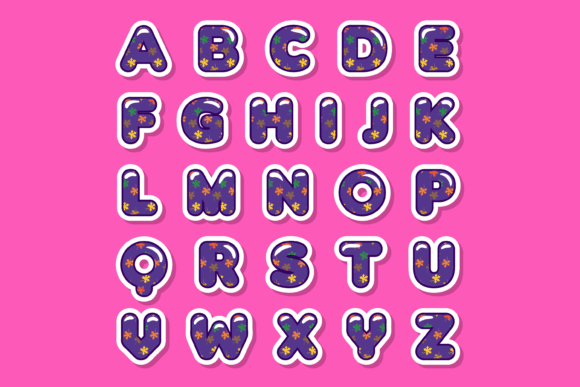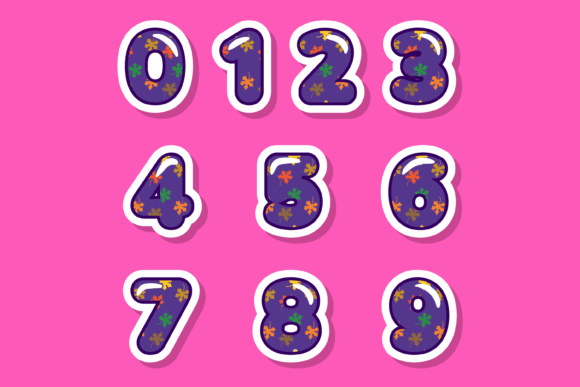
Fall Leaves Font: Add a Touch of Autumn Charm to Your Designs
As the seasons change and autumn arrives, designers and crafters are on the lookout for inspiration to add a touch of warmth and coziness to their projects. If you’re looking for a font that captures the essence of fall, look no further than the Fall Leaves Font. This lovely color font is perfect for a wide range of autumn-related designs, from wedding invitations to back-to-school projects, party decorations, posters, blogs, clothing, greeting cards, social media posts, and more.
What Makes Fall Leaves Font So Special?
Fall Leaves Font is a unique and charming color font that features beautiful, intricate designs that evoke the feeling of fall. The font is carefully crafted to bring a friendly and approachable touch to your designs, making it perfect for projects that require a personal and autumnal feel. With its stunning color and elegant design, Fall Leaves Font is sure to bring any DIY project to life.
Uses for Fall Leaves Font
The versatility of Fall Leaves Font is one of its best features. Here are just a few ideas for how you can use this amazing font in your designs:
- Autumn-related designs: From harvest-themed posters to cozy fall party decorations, Fall Leaves Font is the perfect choice for any autumn-inspired project.
- Wedding invitations: Add a touch of romance and whimsy to your wedding invitations with Fall Leaves Font. Its elegant design and beautiful colors make it perfect for fall weddings.
- Back-to-school projects: Create eye-catching posters, flyers, and other back-to-school materials with Fall Leaves Font. Its friendly and approachable design is sure to delight students and teachers alike.
- Party decorations: From fall birthday parties to harvest-themed gatherings, Fall Leaves Font is the perfect choice for creating festive and fun party decorations.
- Posters and blogs: Add a touch of autumn charm to your posters and blogs with Fall Leaves Font. Its elegant design and beautiful colors make it perfect for a wide range of topics and themes.
- Clothing and accessories: Use Fall Leaves Font to create eye-catching designs for clothing, hats, scarves, and other accessories. Its unique and charming design is sure to stand out.
- Greeting cards and social media posts: Add a personal touch to your greeting cards and social media posts with Fall Leaves Font. Its friendly and approachable design is perfect for sharing with friends and family.
Why Choose Fall Leaves Font?
With so many fonts to choose from, why should you choose Fall Leaves Font? Here are just a few reasons why this amazing font stands out:
- Unique and charming design: Fall Leaves Font features a beautiful and intricate design that is sure to capture the essence of fall.
- Versatile: From autumn-related designs to wedding invitations and back-to-school projects, Fall Leaves Font is perfect for a wide range of projects and themes.
- High-quality: Fall Leaves Font is a high-quality color font that is carefully crafted to ensure that it looks great in any project.
Fall Leaves Font is a lovely color font that is perfect for adding a touch of autumn charm to your designs. With its unique and charming design, versatility, and ease of use, it’s the perfect choice for designers and crafters of all skill levels. Whether you’re working on an autumn-related project, wedding invitation, back-to-school materials, or social media post, Fall Leaves Font is sure to bring any DIY project to life. So why wait? Add Fall Leaves Font to your fonts library today and start creating stunning designs that capture the essence of fall.